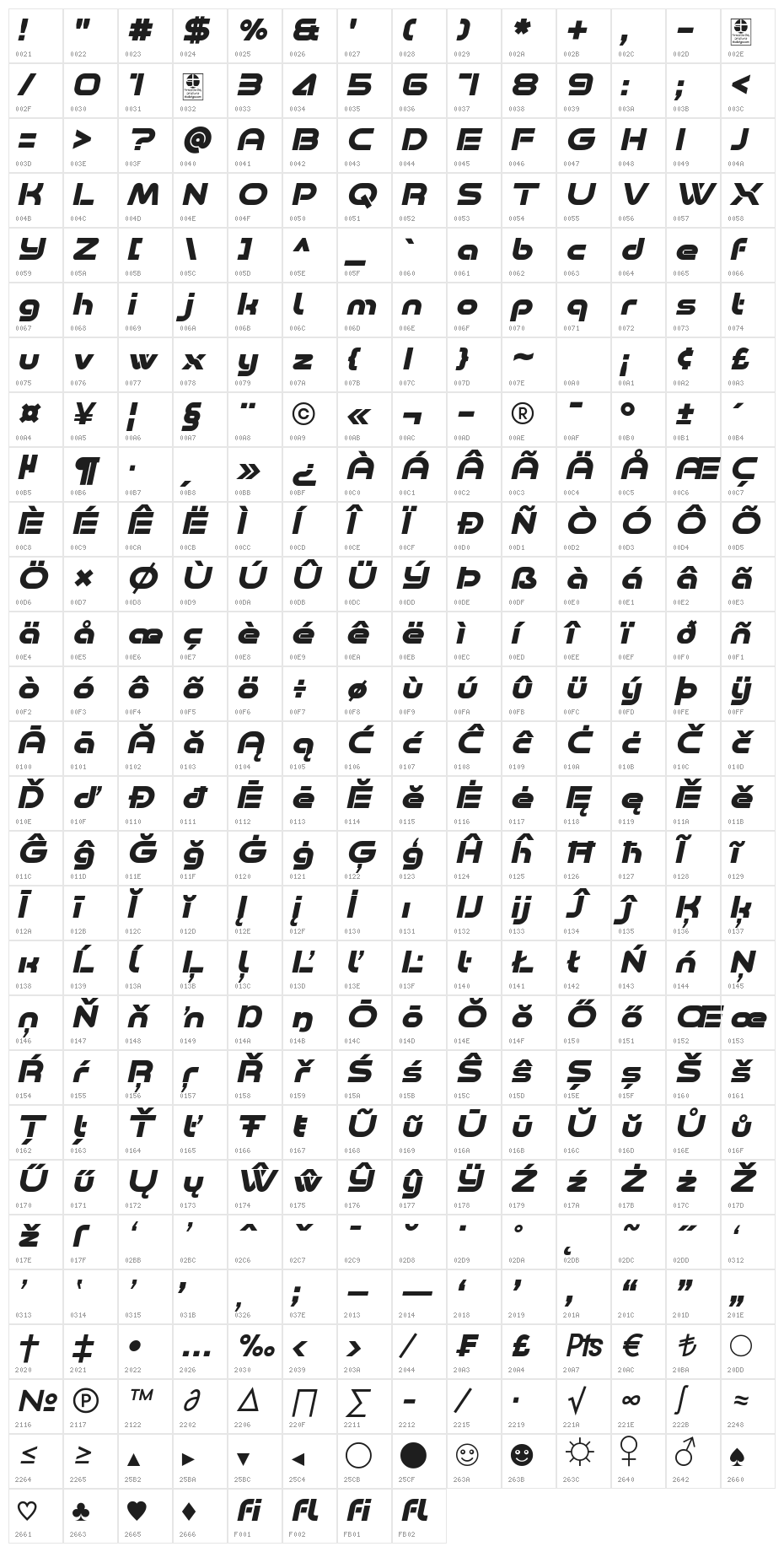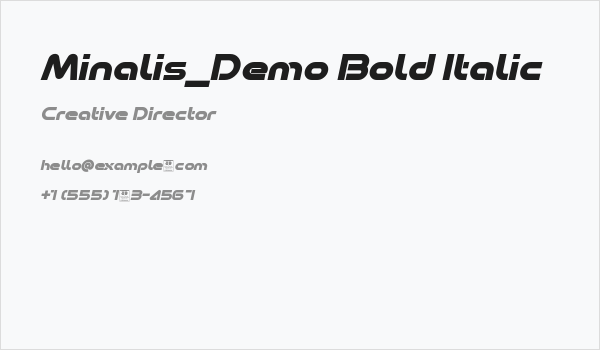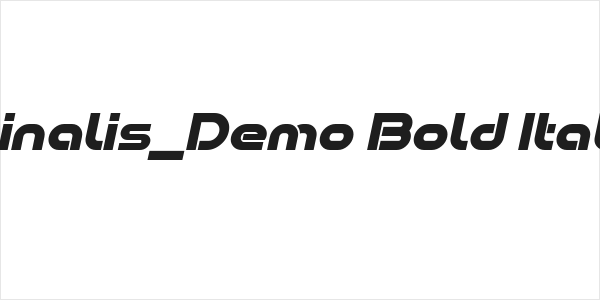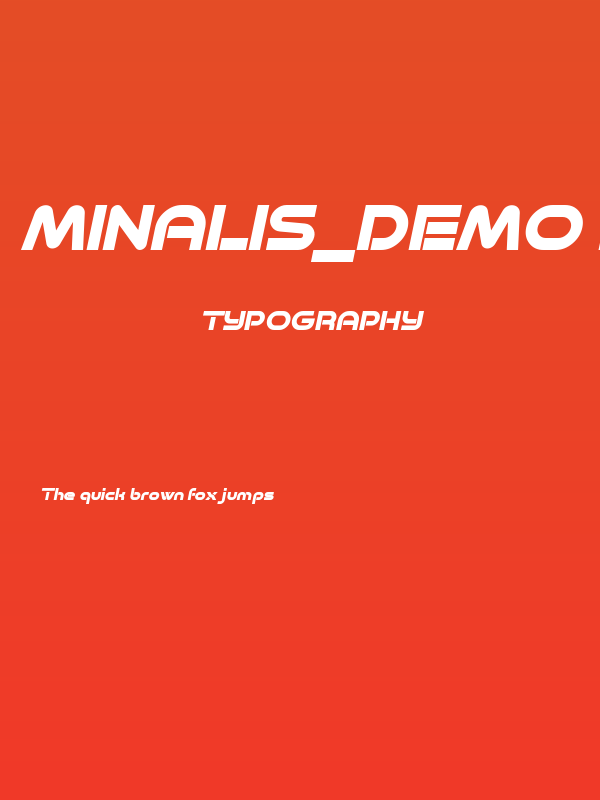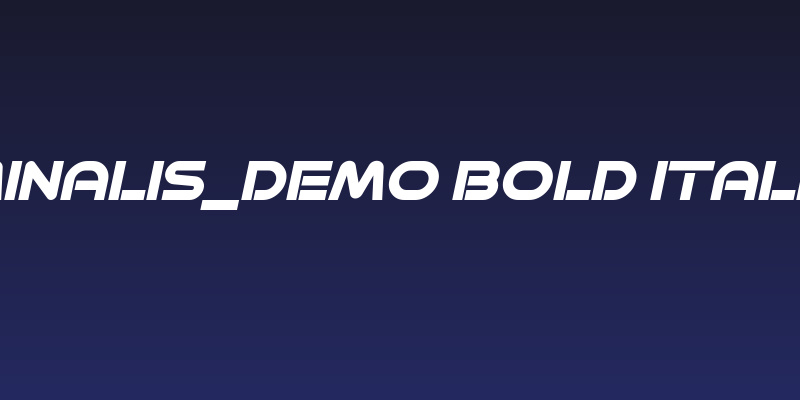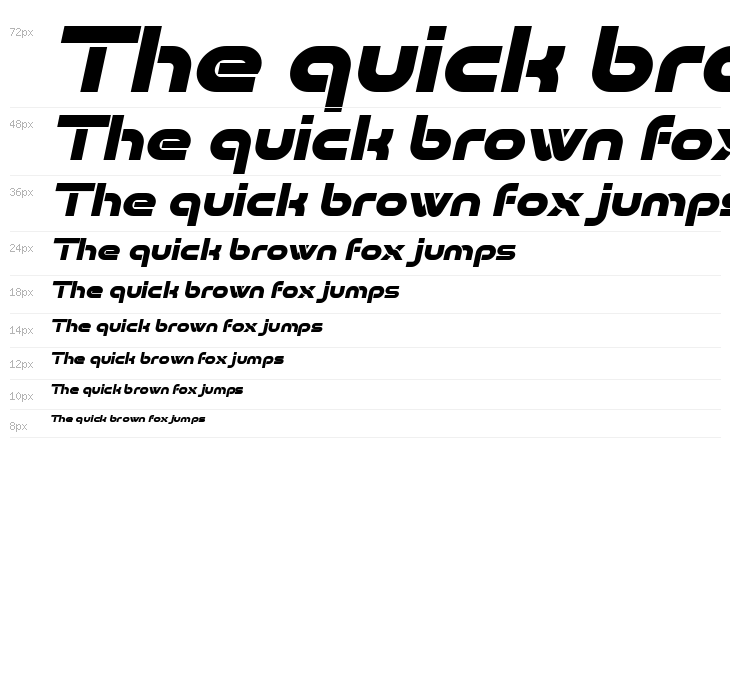
Minalis_Demo Bold Italic Font
Minalis_Demo Bold Italic Description
This font exhibits a bold and dynamic style with a distinctly modern flair. The characters are italicized, giving them a forward-leaning appearance that suggests movement and speed. The strokes are thick and consistent, contributing to a strong visual impact. The design features sharp angles and clean lines, enhancing its futuristic and sleek aesthetic. The uppercase and lowercase letters maintain a uniform width, while the numerals and special characters are crafted to match the overall style, ensuring cohesion across all elements. The font's boldness and italic nature make it particularly suitable for attention-grabbing headlines and display purposes.
| Use Case | Headlines, Logos, Display |
| Proposed Projects | Ideal for sports branding, tech company logos, automotive advertisements, and dynamic poster designs. |